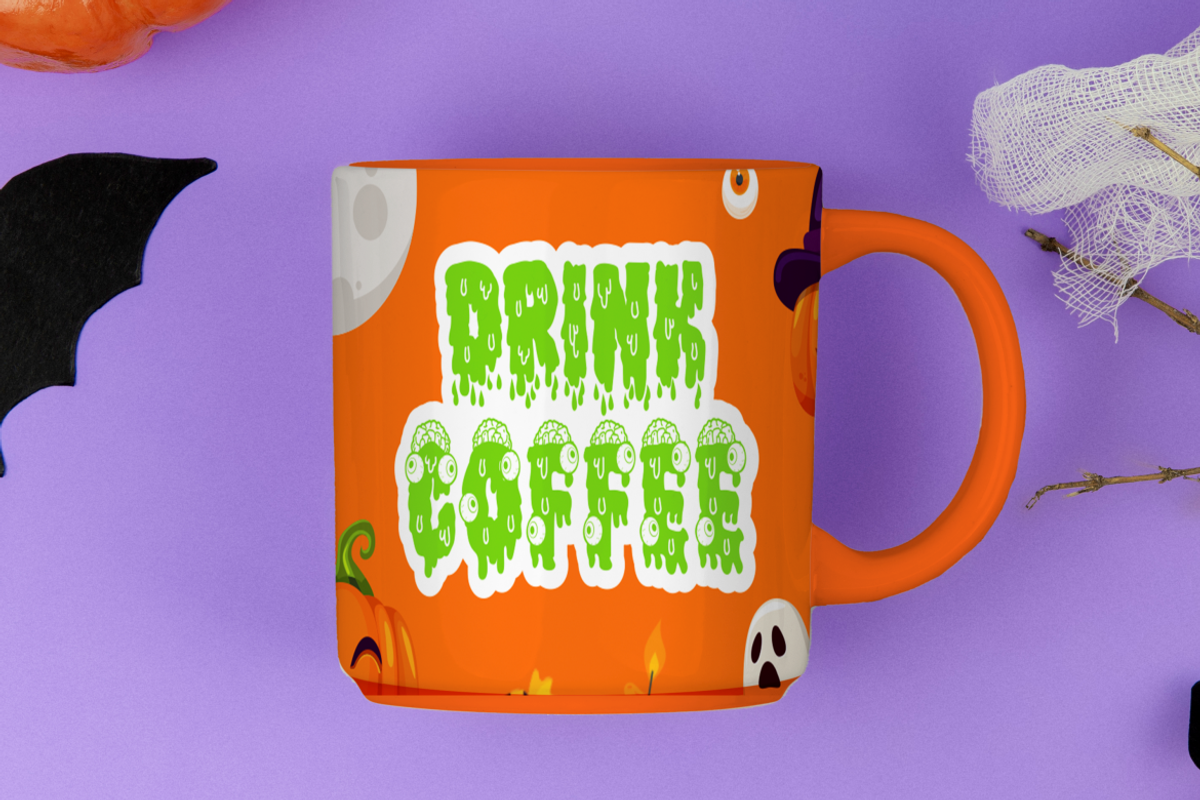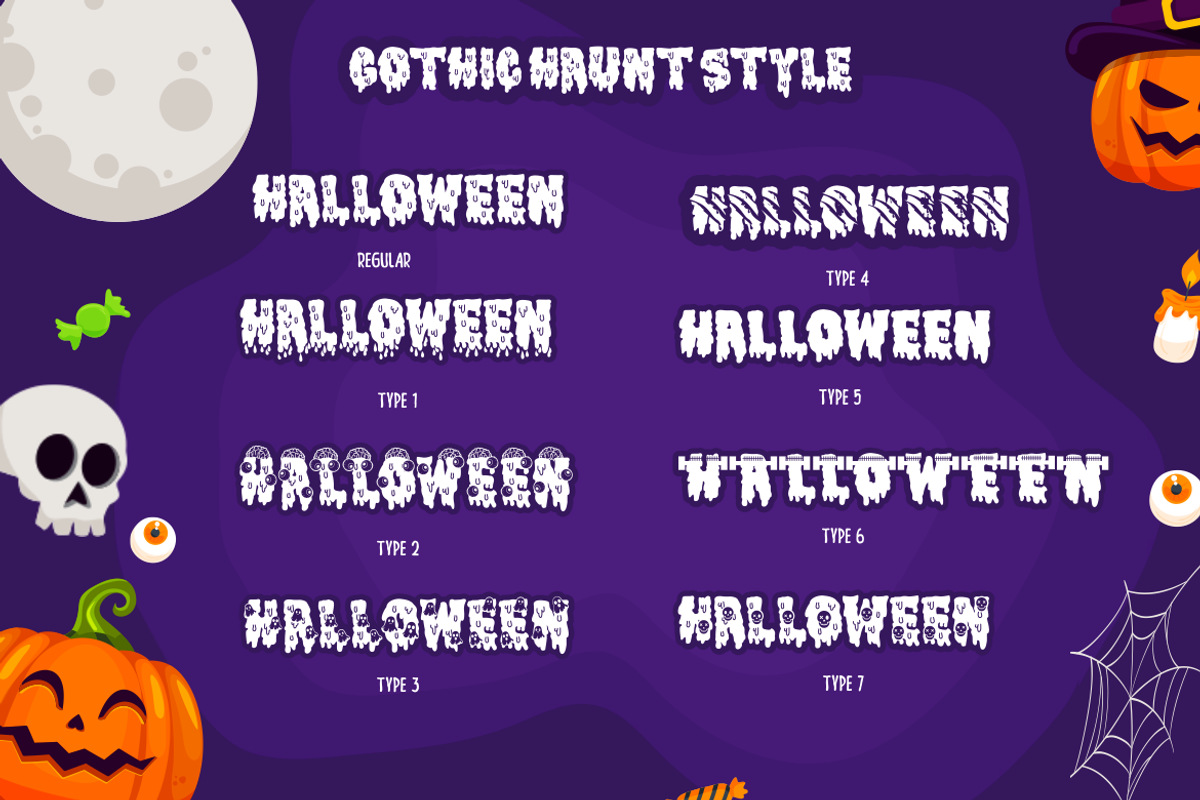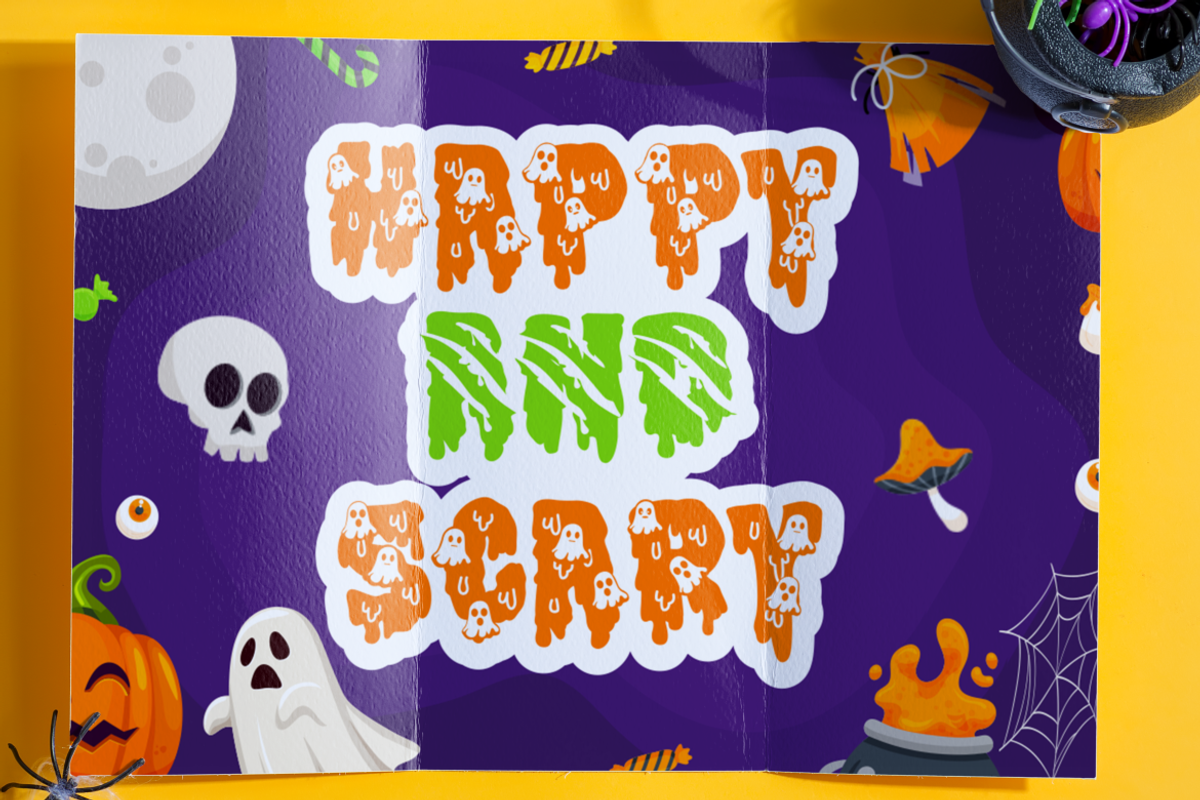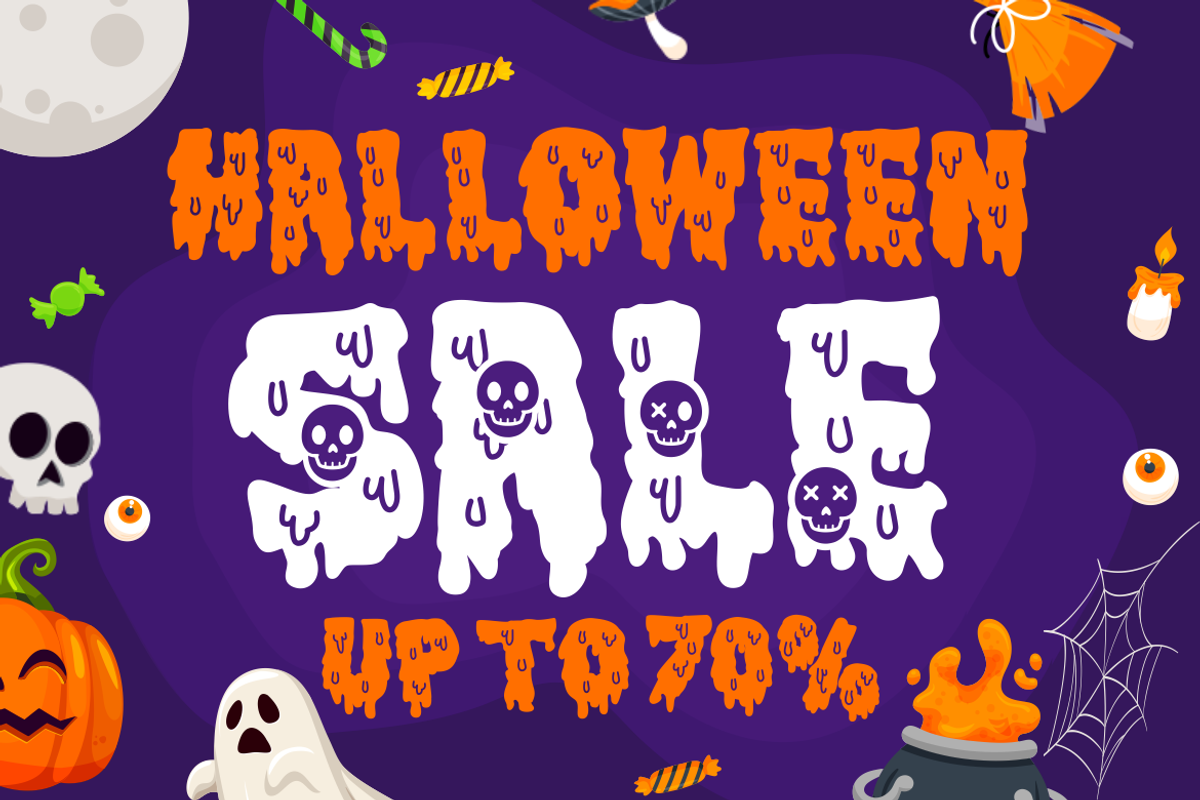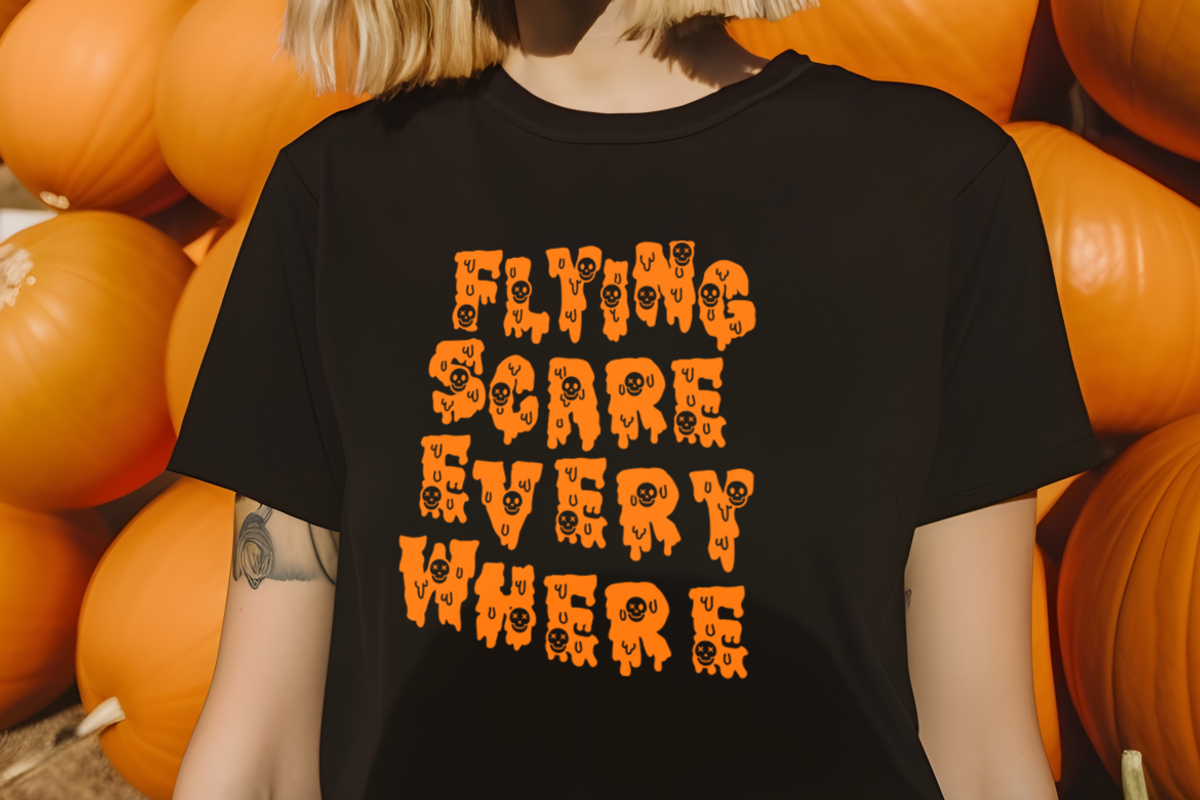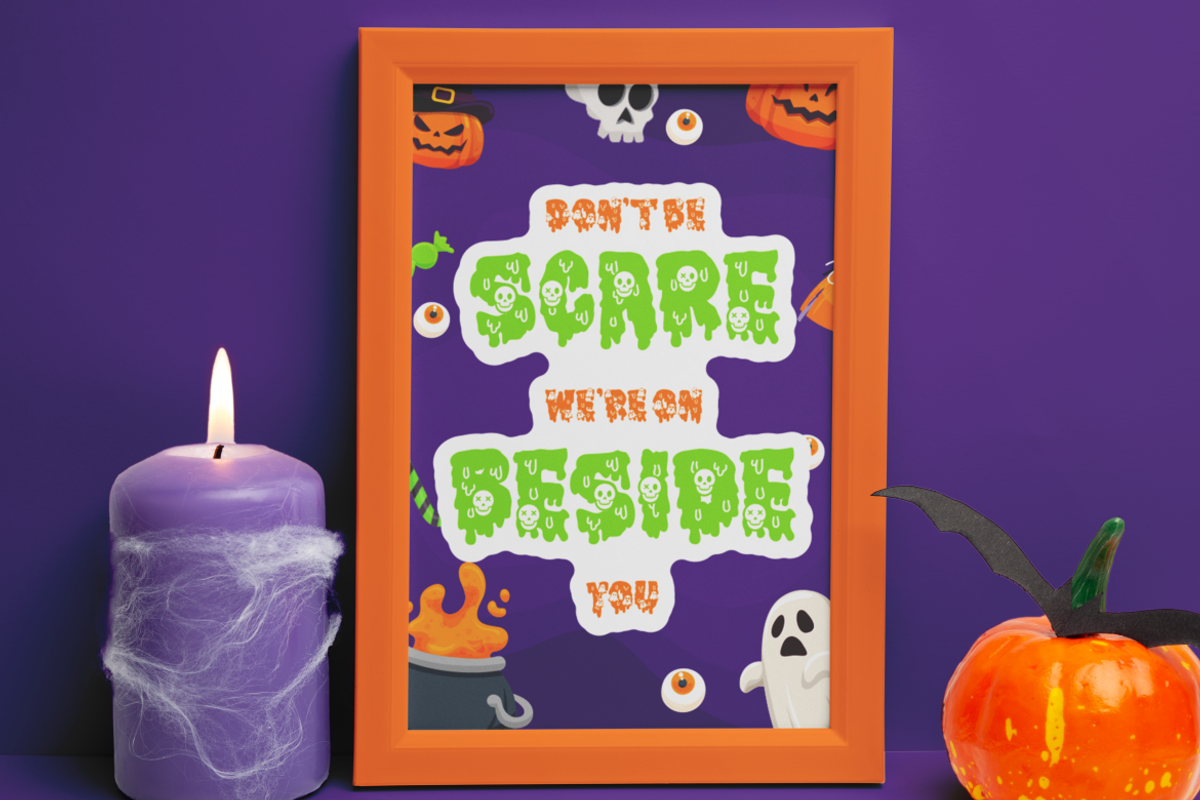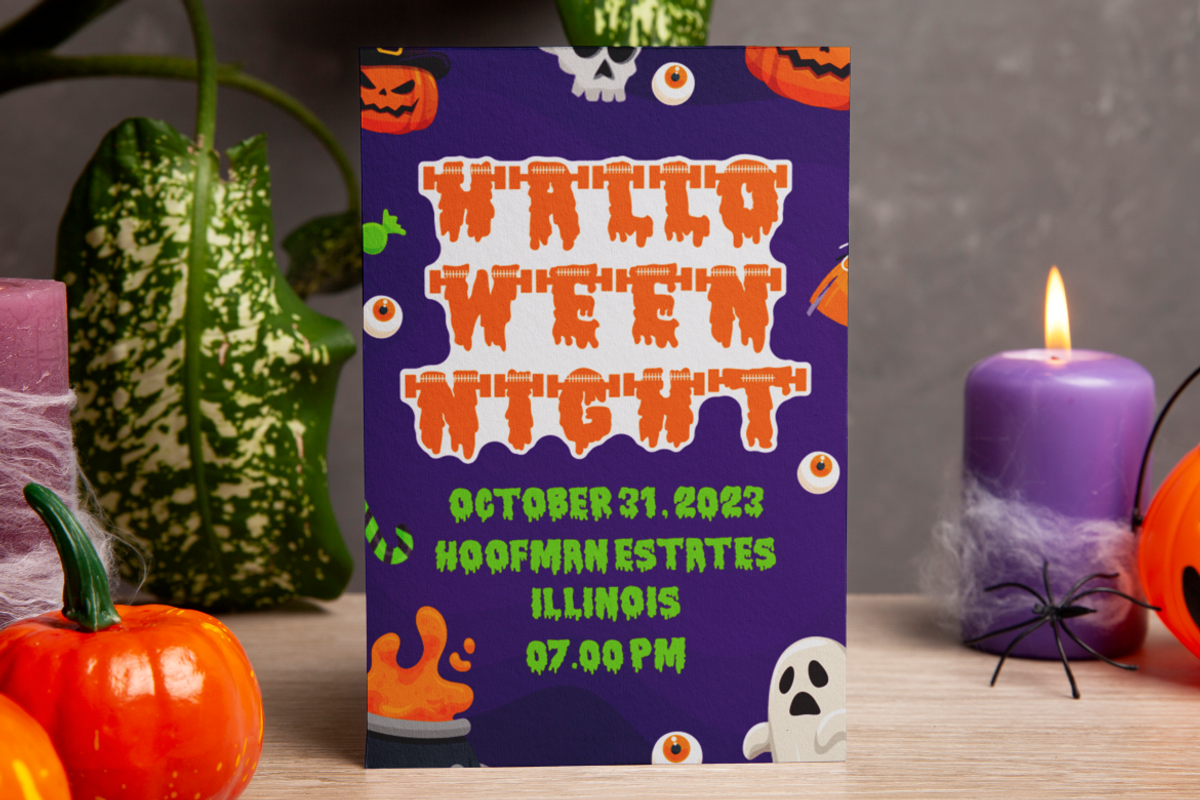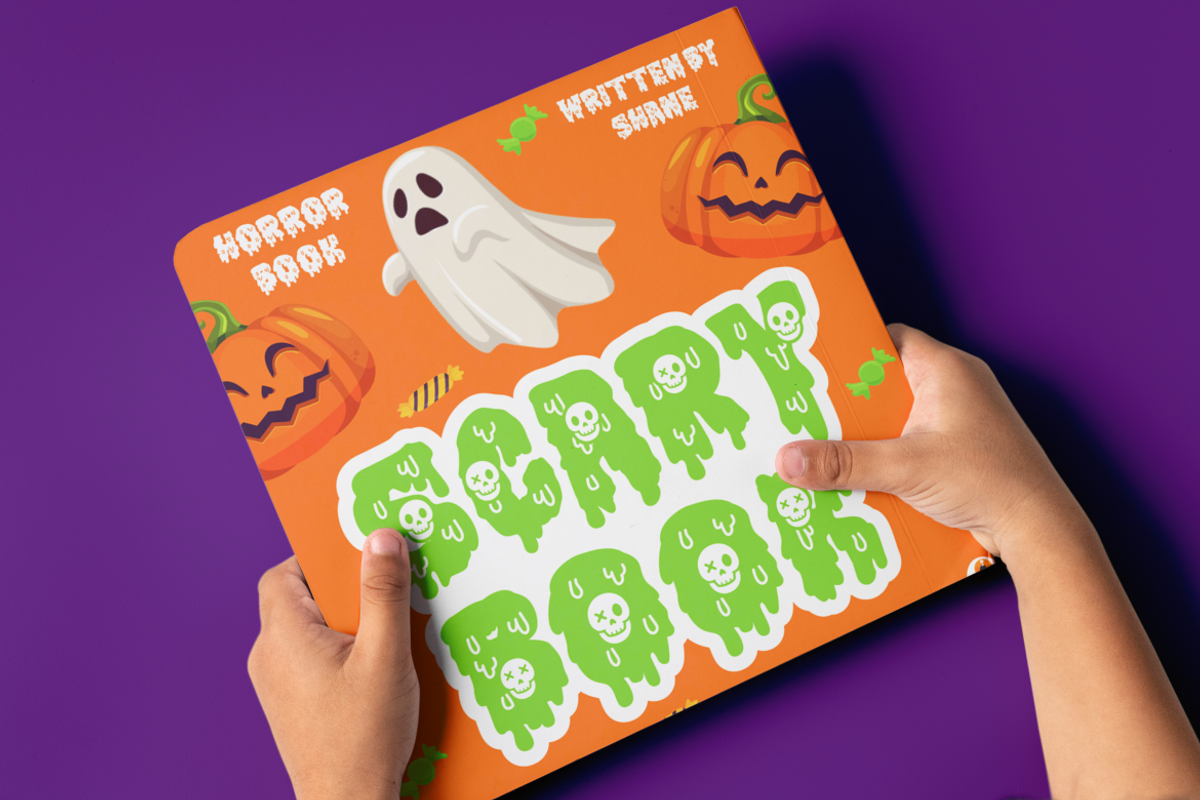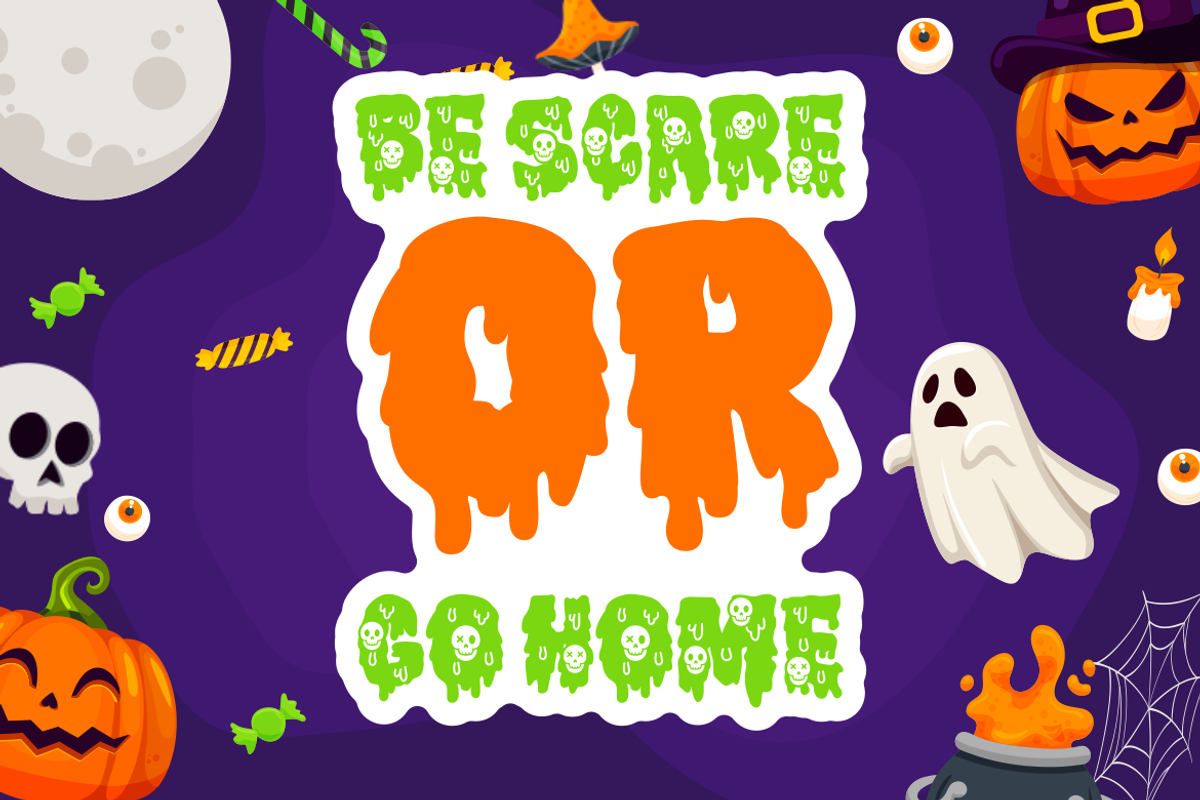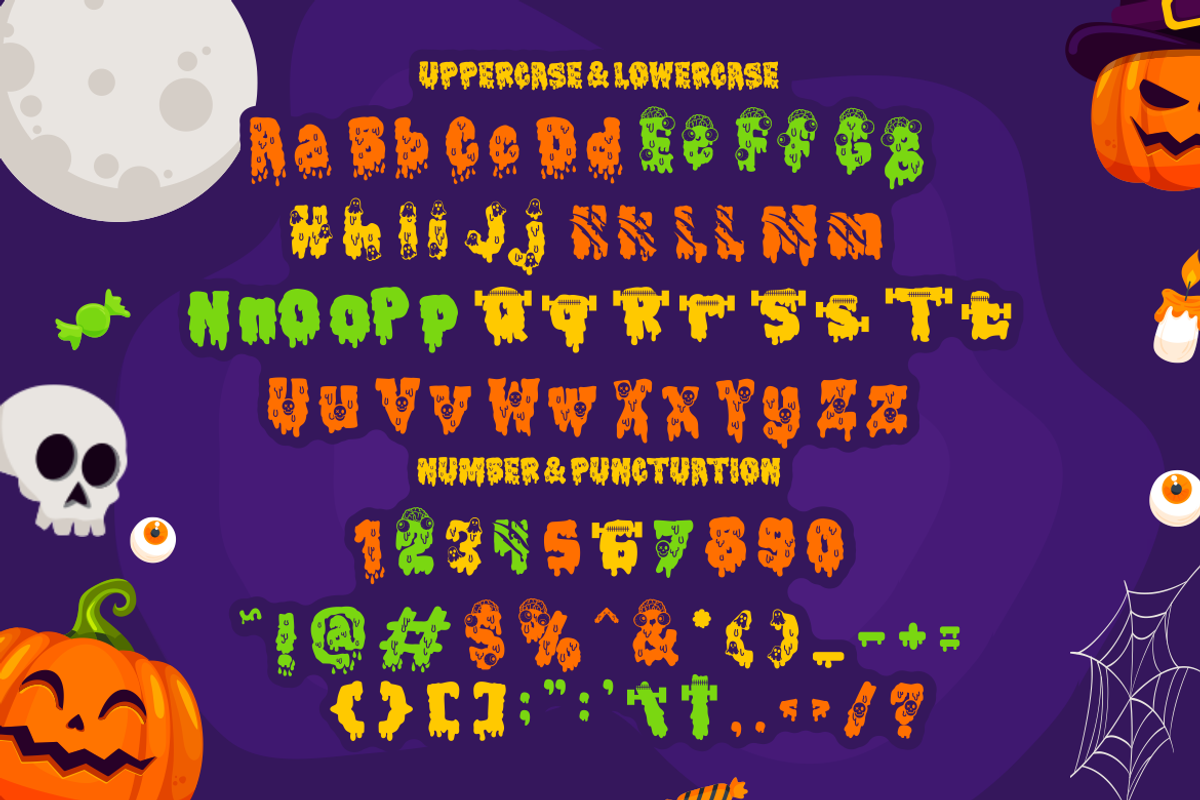
Gothic Haunt - Halloween Slime Font
Are you looking for a font that captures the eerie yet playful spirit of Halloween? Do you want to add some spooky flair to your designs? If so, you will love Gothic Haunt - Halloween Slime Font!
Gothic Haunt is a display font that features quirky letters with dripping effects and creepy embellishments, making it the perfect choice for any Halloween-themed project. Each character is designed with intricate details, echoing the chilling vibes of haunted houses, ghostly apparitions, and mysterious shadows.
Gothic Haunt offers various styles that align with its Halloween theme, giving you the freedom to use each style independently or mix them for a richer visual experience. It’s not just a font; it’s an experience that transports you to a world where ghosts, goblins, witches, and monsters roam free. Ideal for logos, branding initiatives for children’s themes, crafting projects, invitation cards or even packaging – its application is as limitless as your imagination.